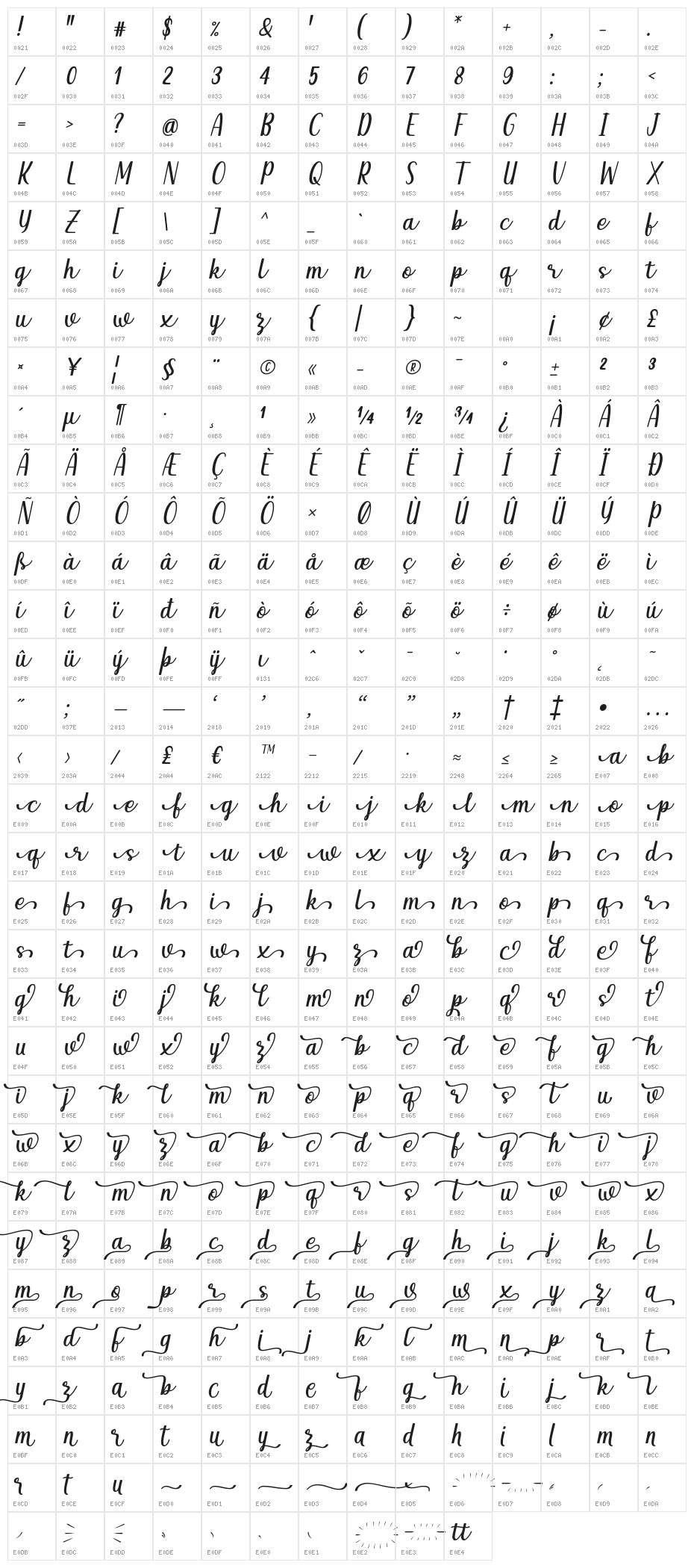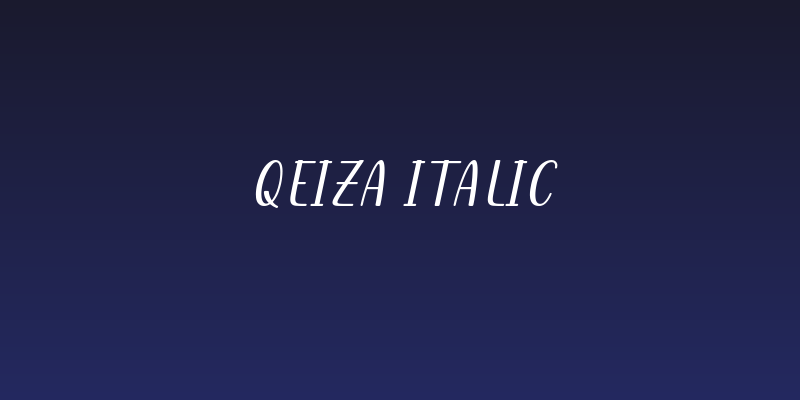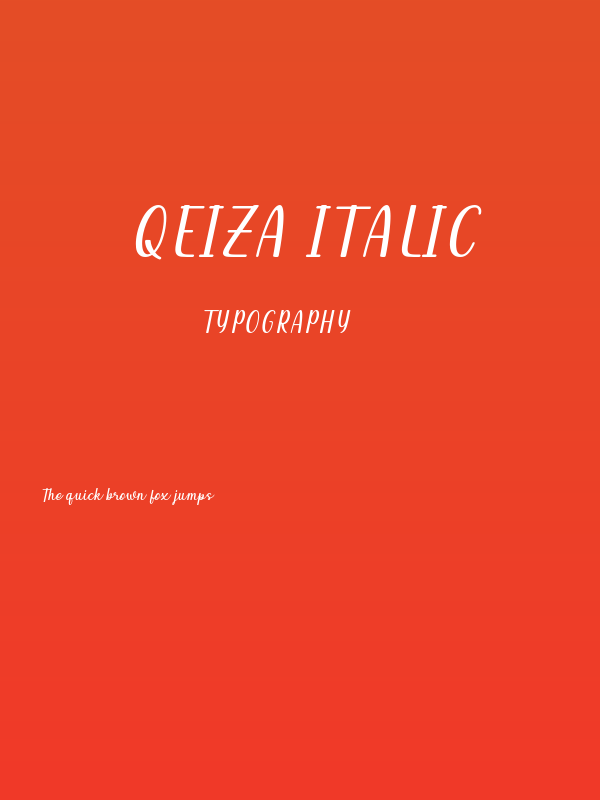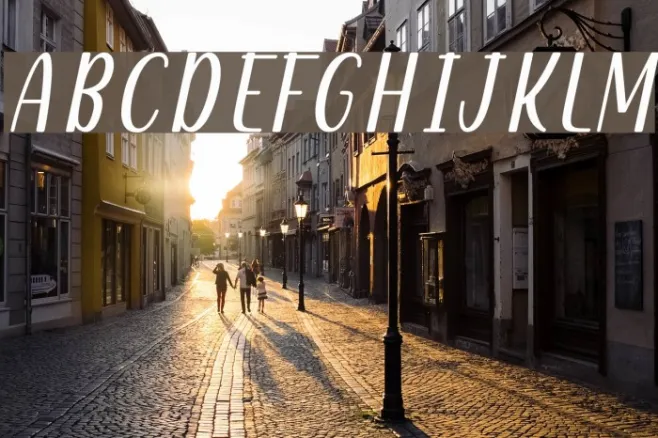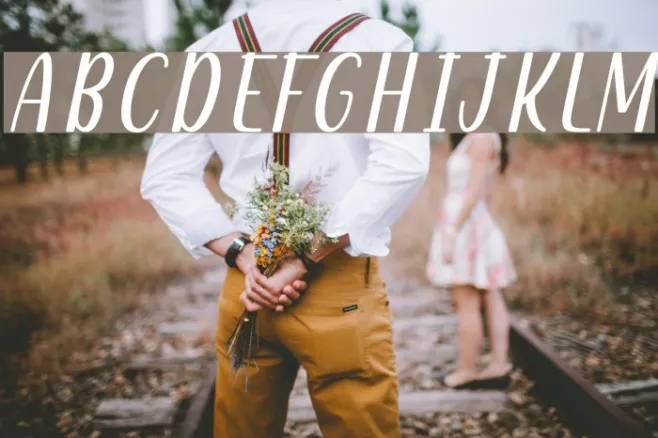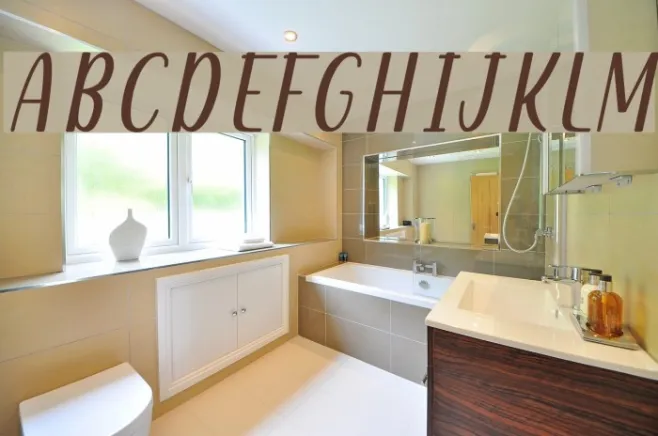
Qeiza Italic Font
Qeiza Italic Description
This font features a dynamic and elegant italic style, characterized by its smooth, flowing curves and slightly condensed letterforms. The uppercase letters are tall and slender, while the lowercase letters maintain a consistent slant, adding to the overall fluidity of the design. The numerals are well-proportioned, aligning harmoniously with the alphabet. Special characters are crafted with the same attention to detail, ensuring a cohesive appearance across all glyphs. The font's design is both modern and timeless, making it versatile for various applications.
| Use Case | Logos, Invitations, Editorial Design |
| Proposed Projects | Ideal for branding, invitations, editorial design, and elegant signage. |